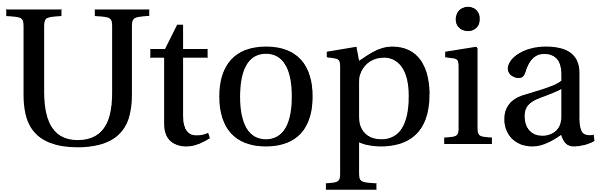
Utopia
Utopia is an Adobe Originals text face designed by Robert Slimbach in 1989. It combines the vertical stress and pronounced stroke contrast of eighteenth-century Transitional types like Baskerville and Walbaum with contemporary innovations in...